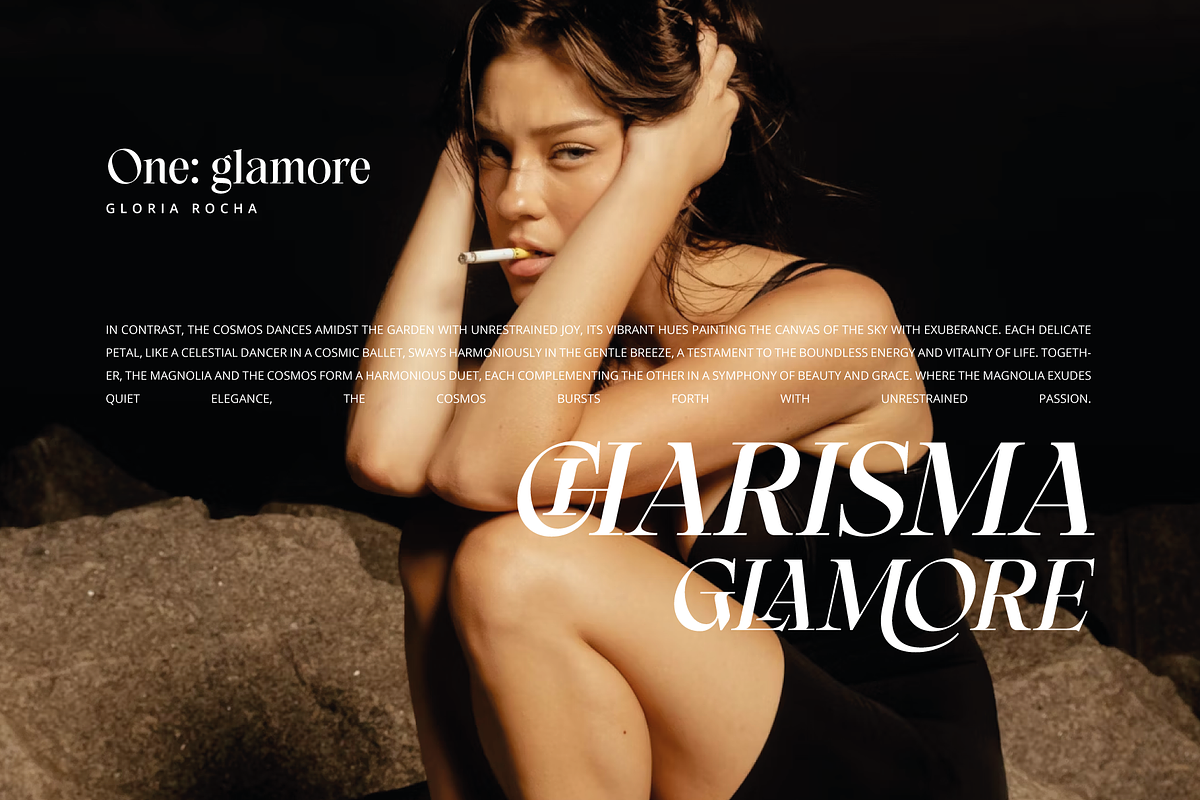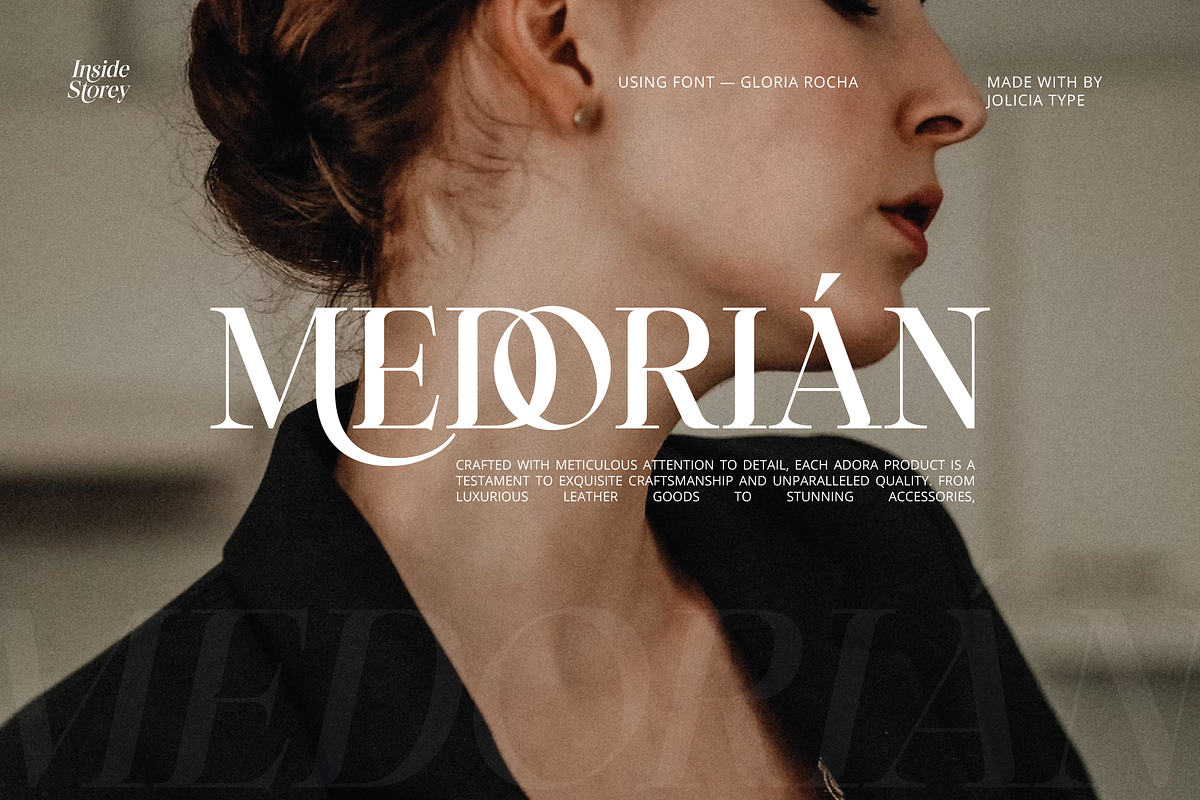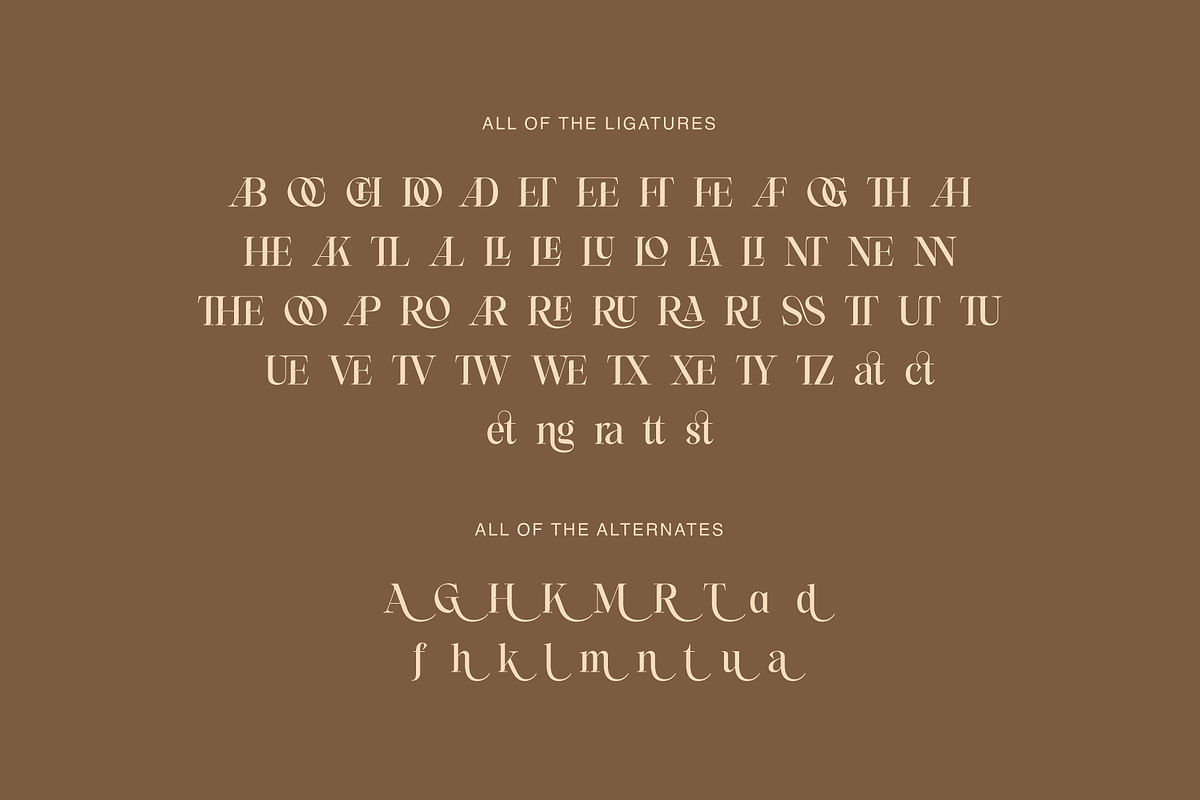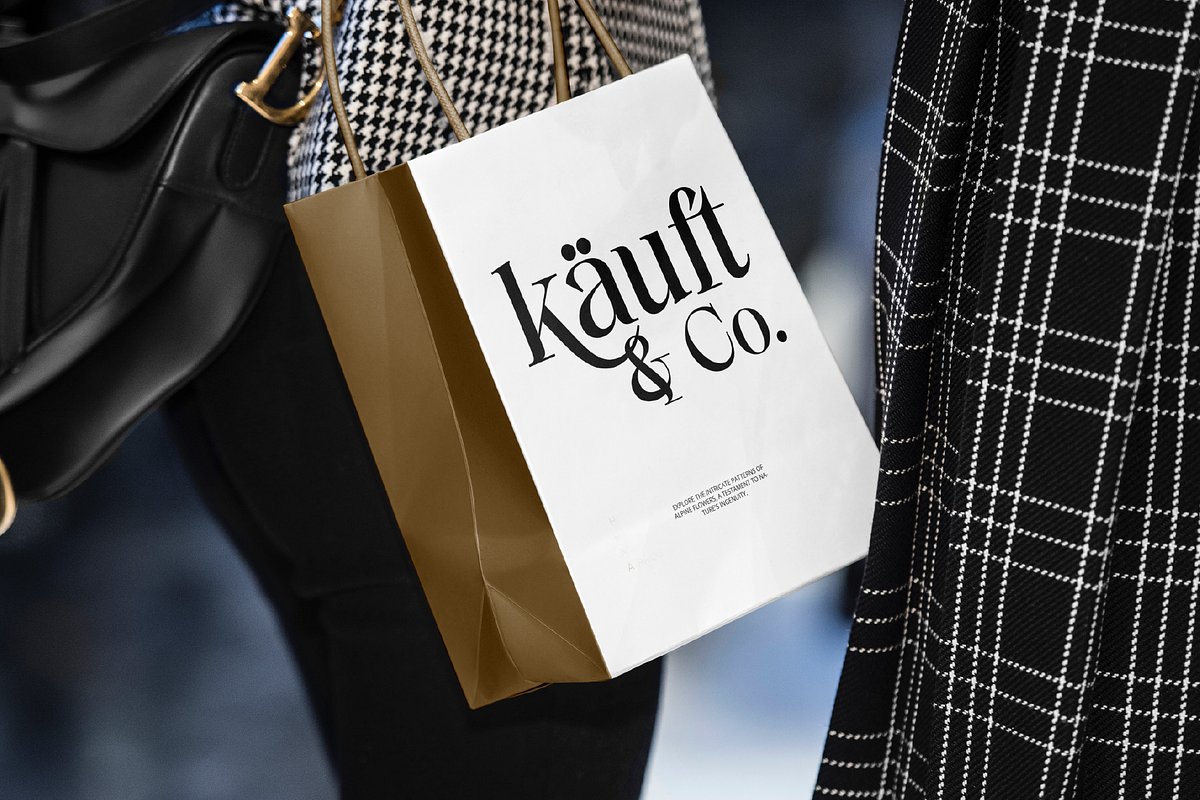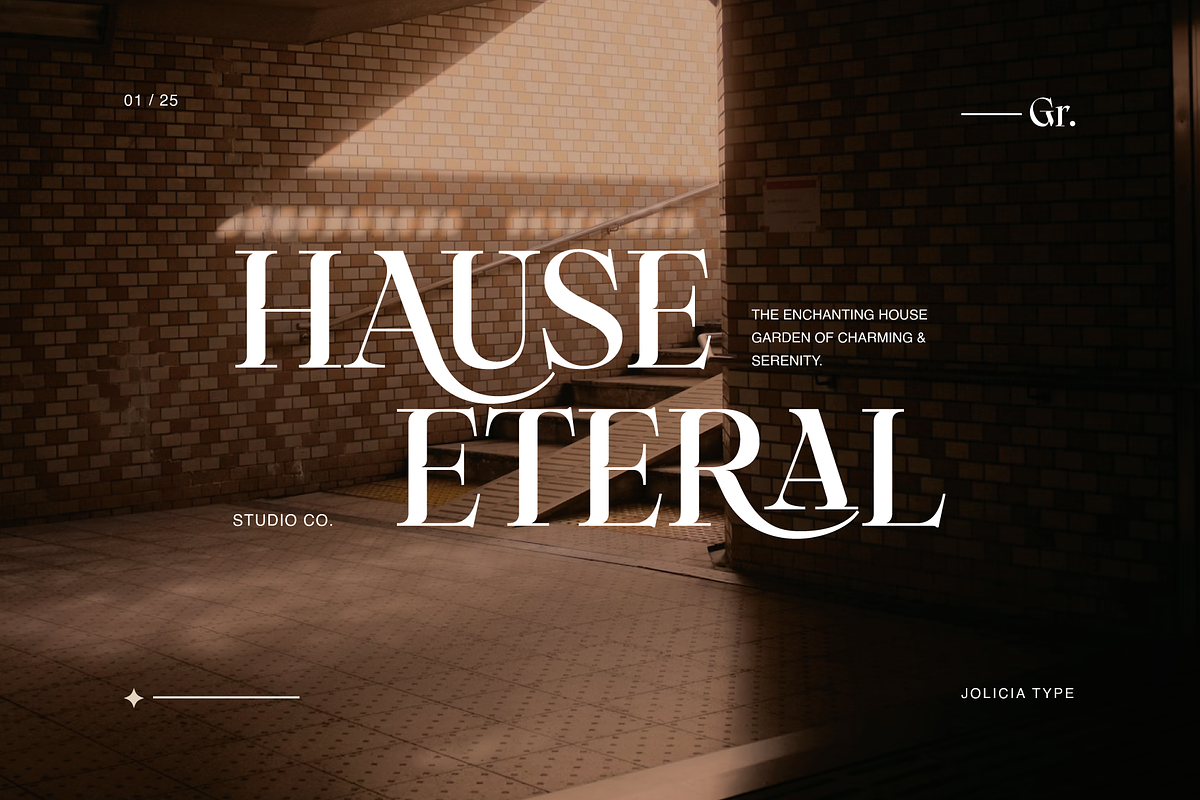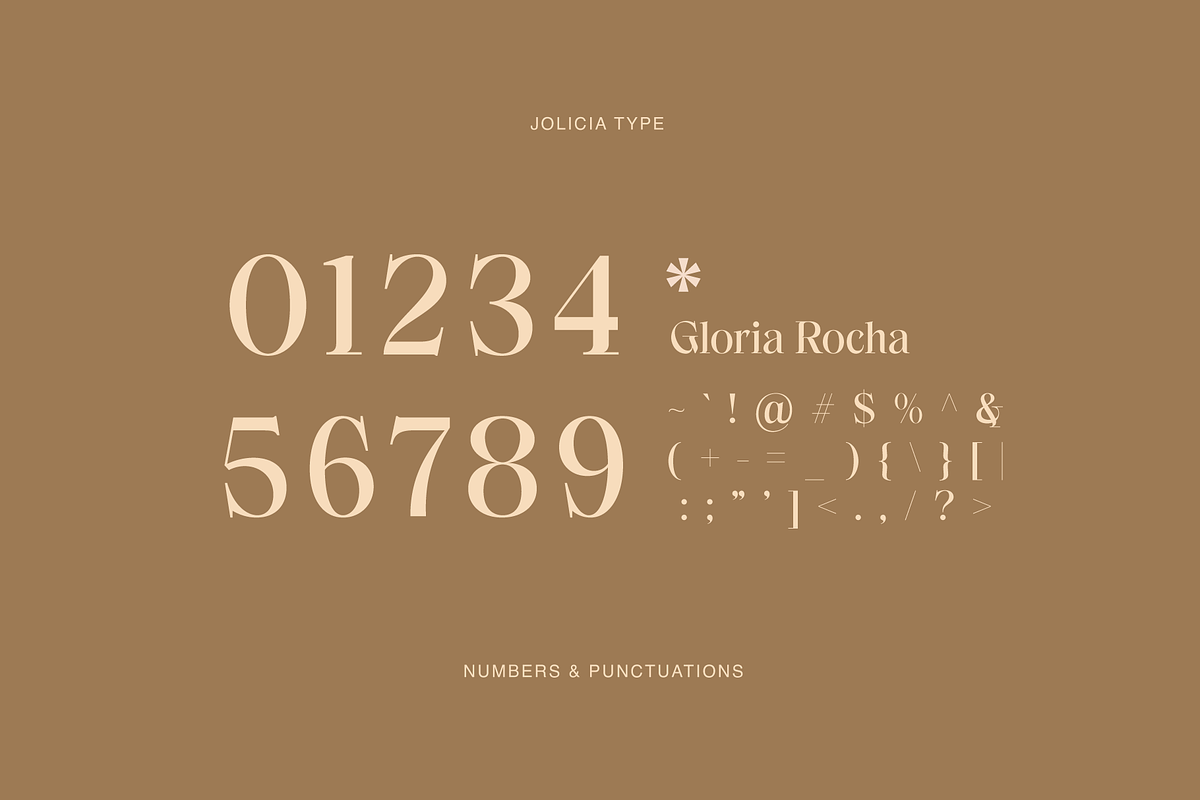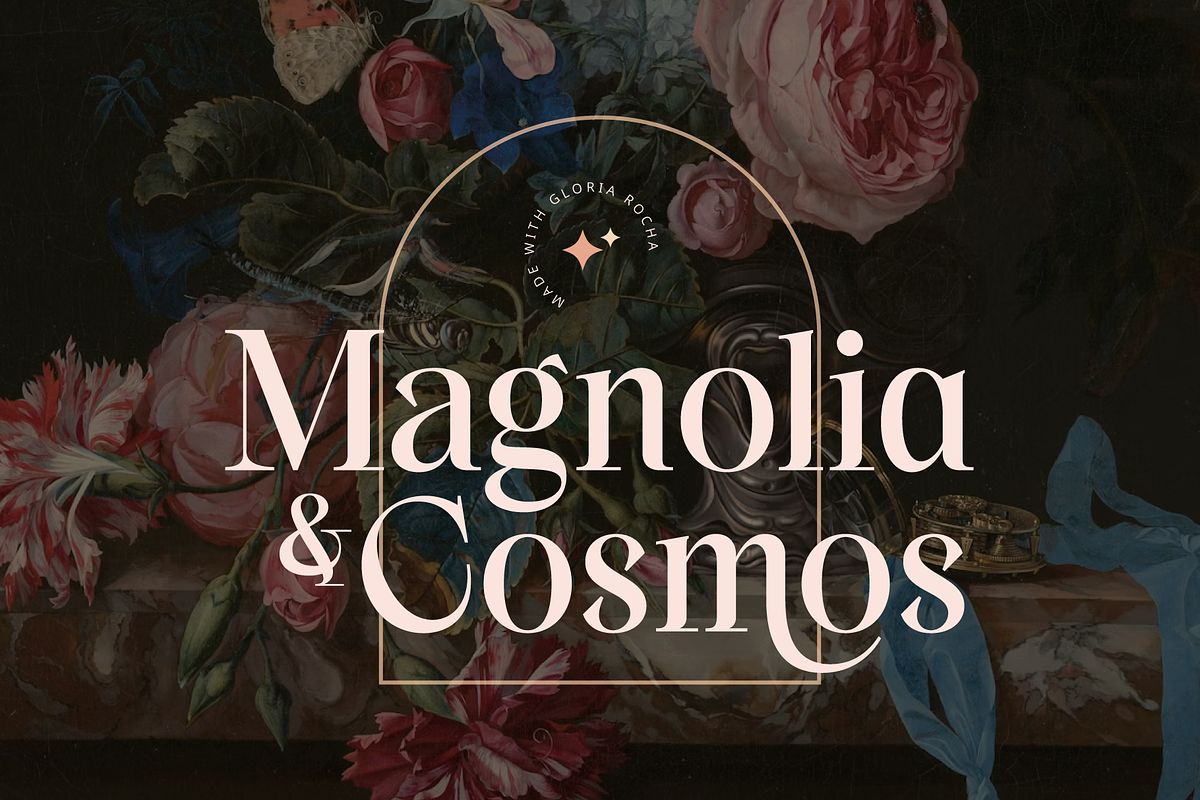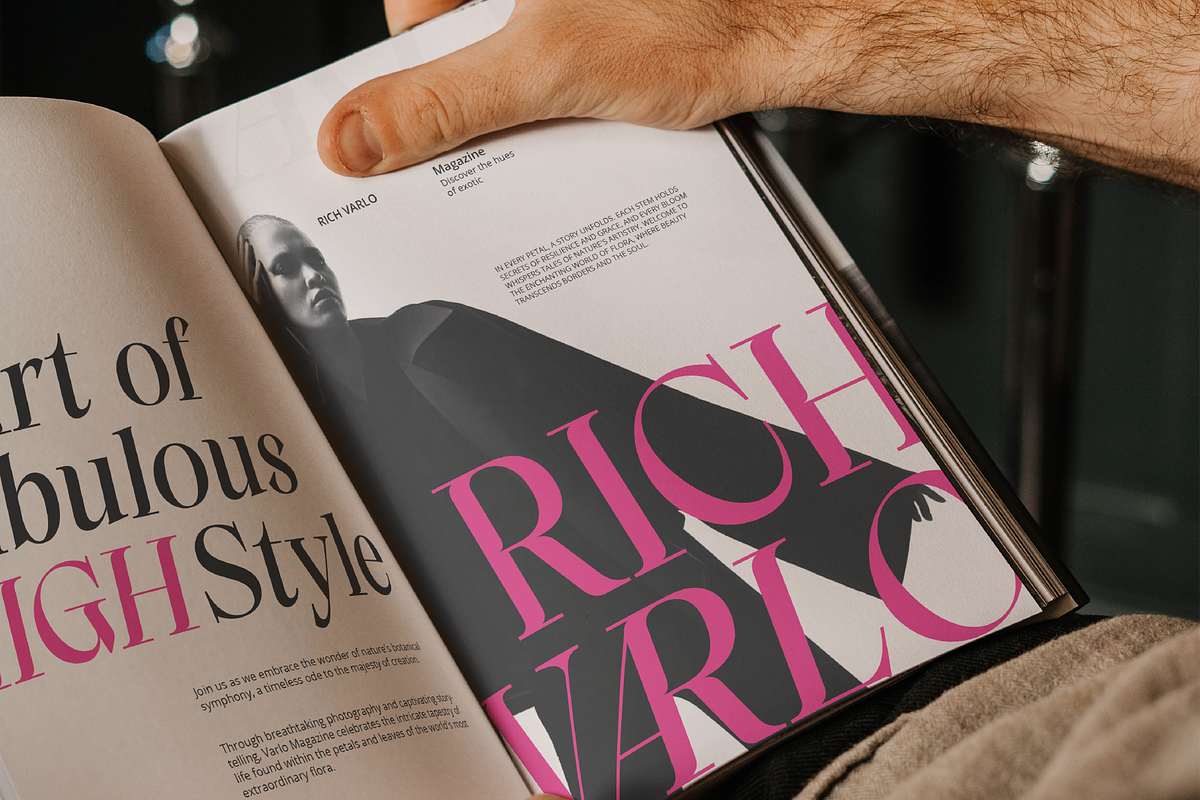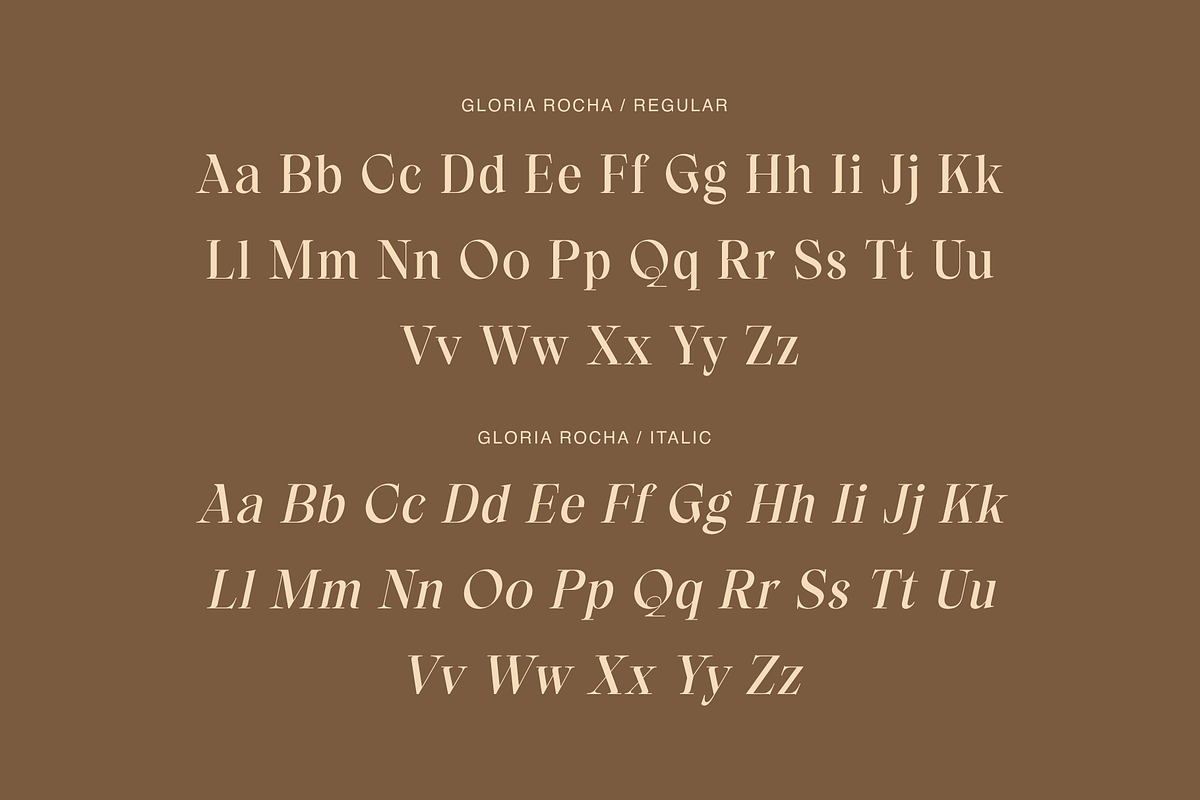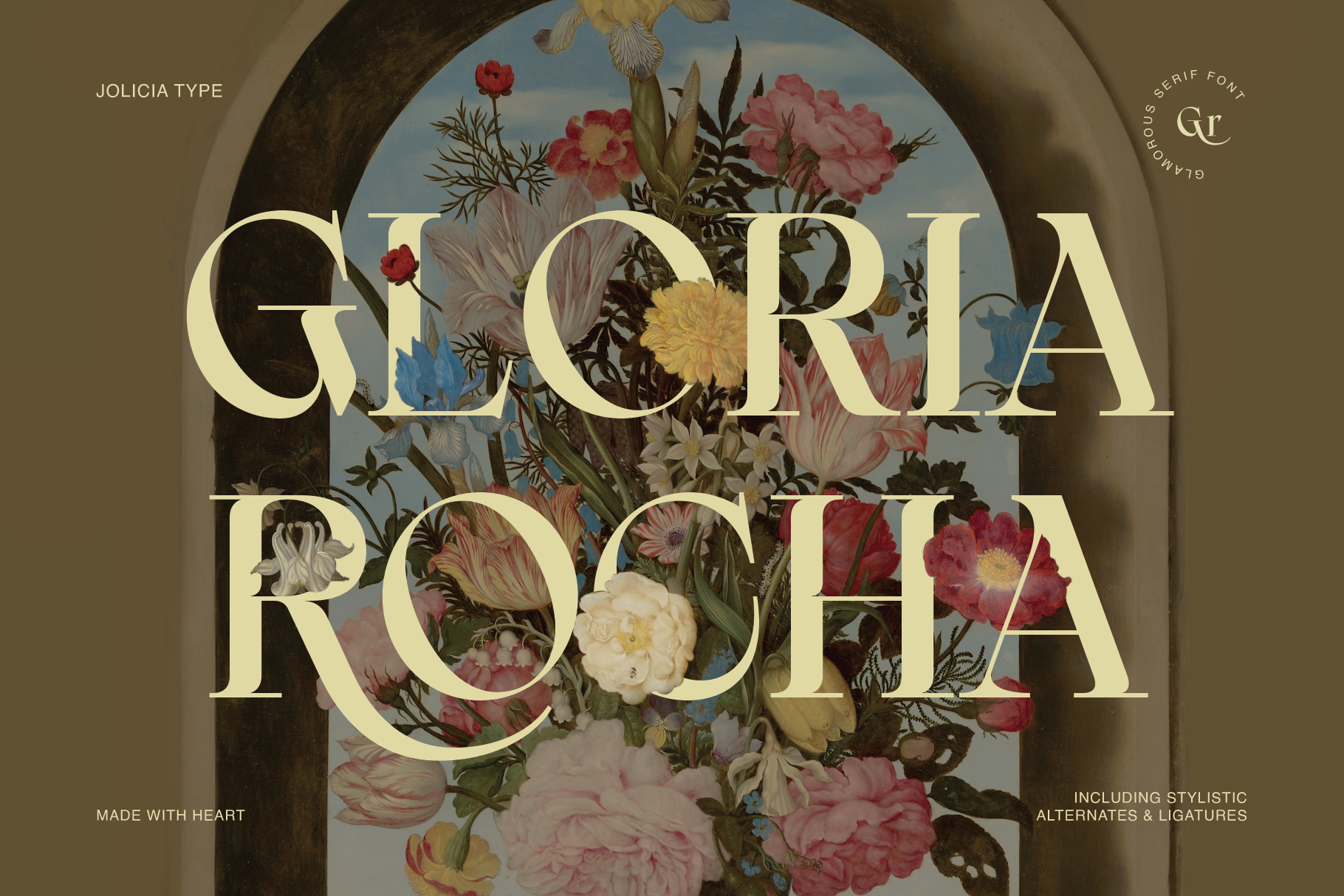
Gloria Rocha | Glamorous Serif Font
Presenting Gloria Rocha Glamour Serif Font. Gloria Rocha is the epitome of glamour in the world of typography. This exquisite serif font boasts both regular and italic styles, allowing you to effortlessly convey sophistication in your designs. Elevating its allure are the meticulously crafted ligatures and alternates, enhancing the font's beauty and versatility. With Gloria Rocha, every project exudes an irresistible charm, making it the go-to choice for those seeking elegance with a glamorous twist.